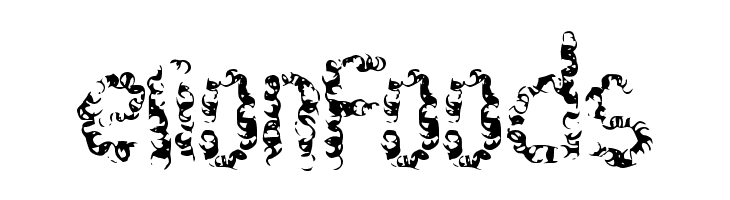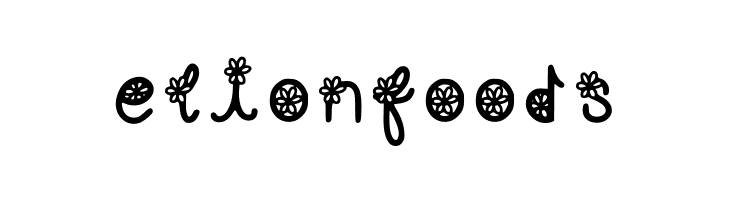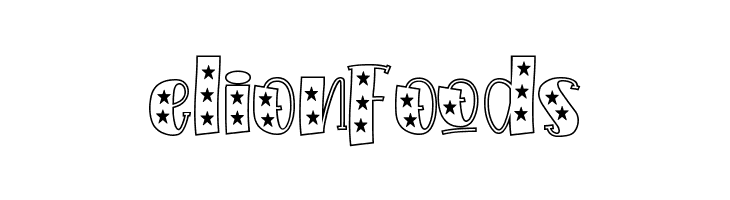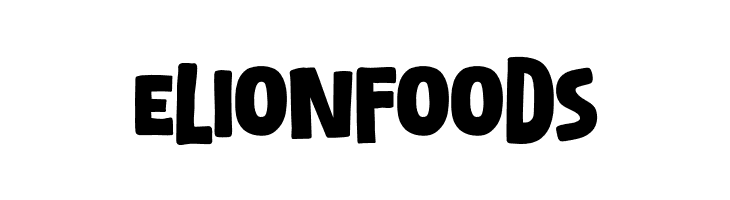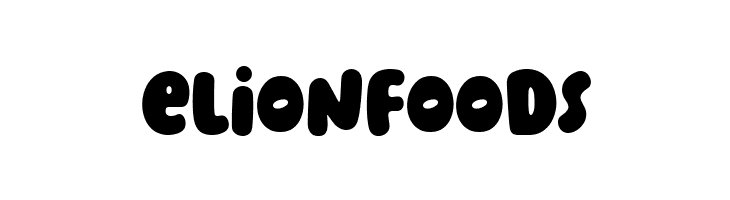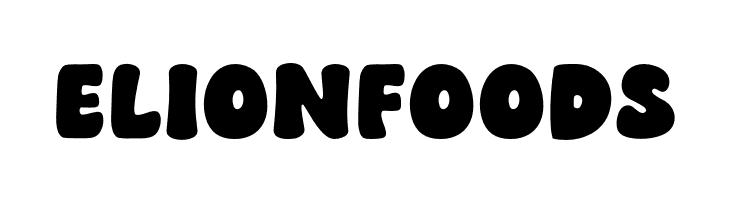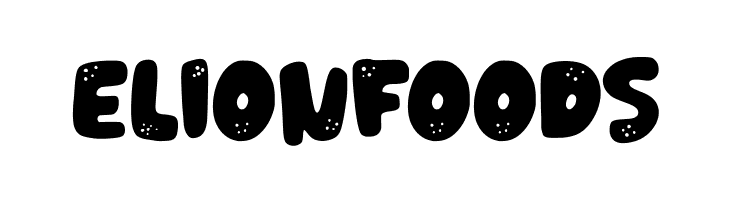
( Fonts by Yoga Letter )
A playful, decorative font with swirling, festive patterns on each character.
( Fonts by Grace Marie )
A whimsical, flower-embellished decorative font with a playful, hand-drawn style.
( Fonts by Letterafa Studio )
A playful, star-filled decorative font perfect for festive projects.
A bold, playful font with rounded, irregular characters.
( Fonts by Four Lines )
A bold, playful font with rounded, bubble-like characters.
( Fonts by MJType )
A bold, rounded font with a playful and whimsical style.
( Fonts by Sronstudio )
A playful, rounded font with a hand-drawn, bubbly style.
( Fonts by Alpaprana Studio )
A playful, bold font with a bubbly, dotted texture and whimsical style.
( Fonts by Selvia Design )
A playful, bunny-eared decorative font with bold, rounded characters.
( Fonts by Yoga Letter )
A playful, bunny-eared decorative font perfect for festive occasions.